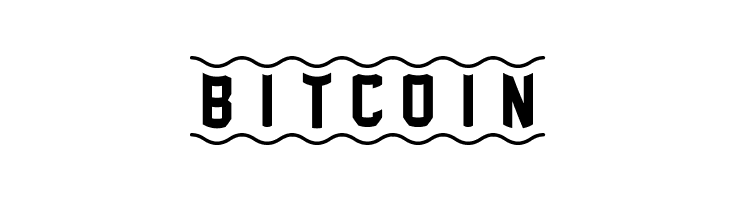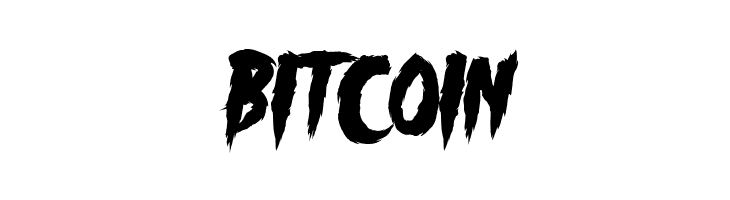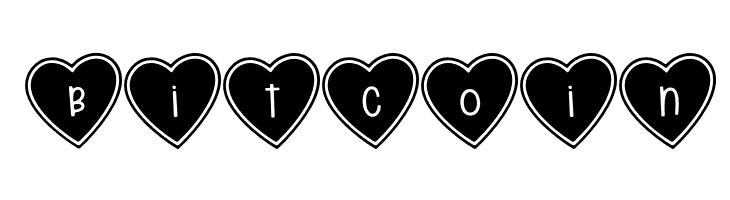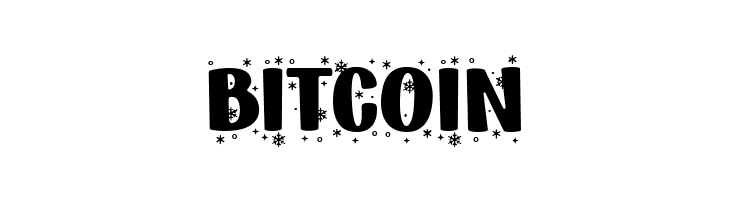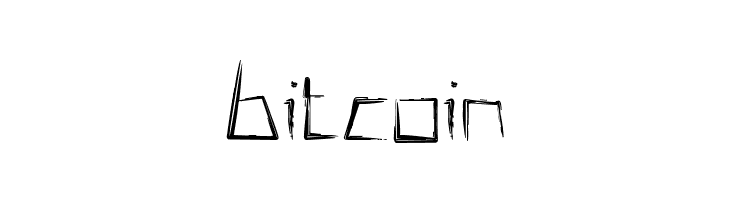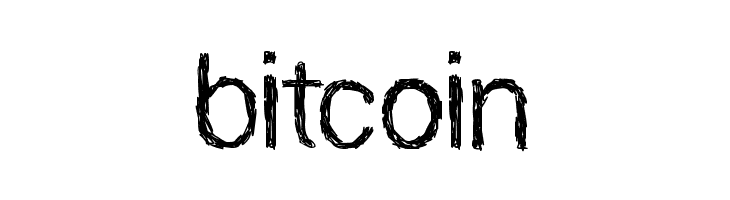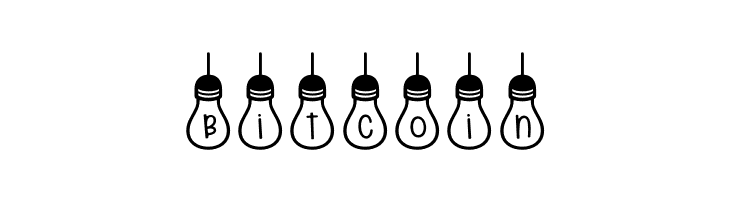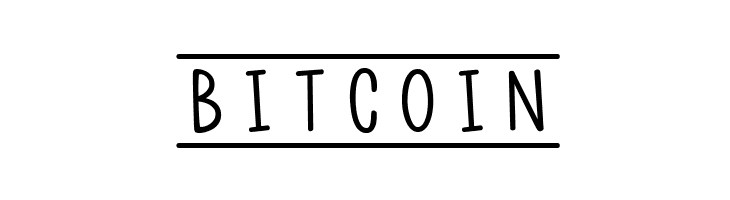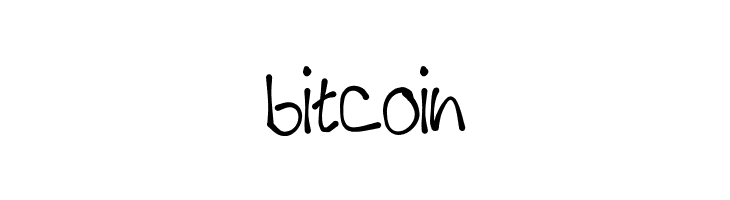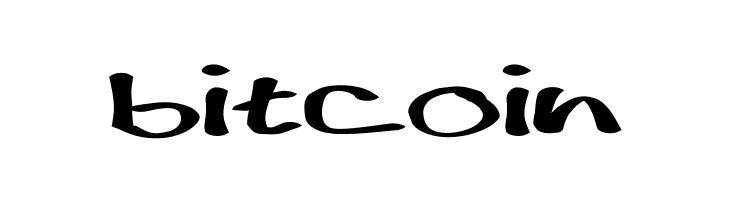
A bold, jagged font with a chaotic and energetic style.
A festive, snowflake-adorned font perfect for holiday-themed designs.
A playful, modern font made from small, evenly spaced dots.
A whimsical, hand-drawn font with thin, elongated strokes and a playful style.
A bold, angular font with a hand-drawn, edgy aesthetic.
A playful, informal handwritten font with dynamic strokes.
A bold, playful handwritten font with a casual and dynamic style.
A bold, expressive handwritten font with dynamic strokes and artistic flair.
A decorative font with letters encased in book outlines, offering a whimsical and literary style.
A decorative font with letters encased in book spines, offering a playful and thematic design.
A playful, bus-themed decorative font ideal for educational and children's projects.
A bold, playful font inspired by school bus signage with a geometric, rounded style.
A bold, distressed font with a grunge-inspired, textured style.
A whimsical font with characters inside light bulb designs, perfect for playful projects.
A decorative font with characters enclosed in heart shapes, ideal for romantic themes.
A hand-drawn, sketch-style font with playful, irregular strokes.
A playful handwritten font with a whimsical and artistic style.
A playful, handwritten font with a crayon-like appearance.
A bold, angular font with a modern, edgy style and a playful wave-like background.
A playful, bold, hand-drawn font with thick outlines and a cartoonish style.